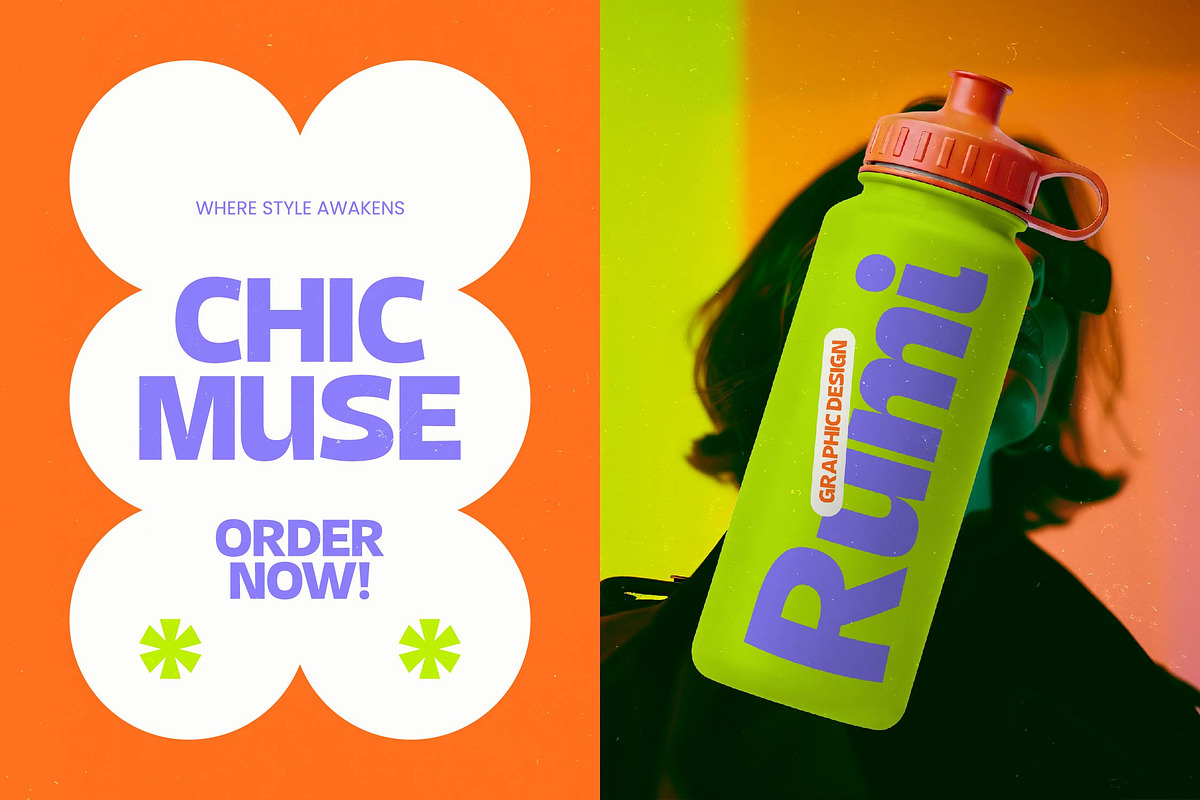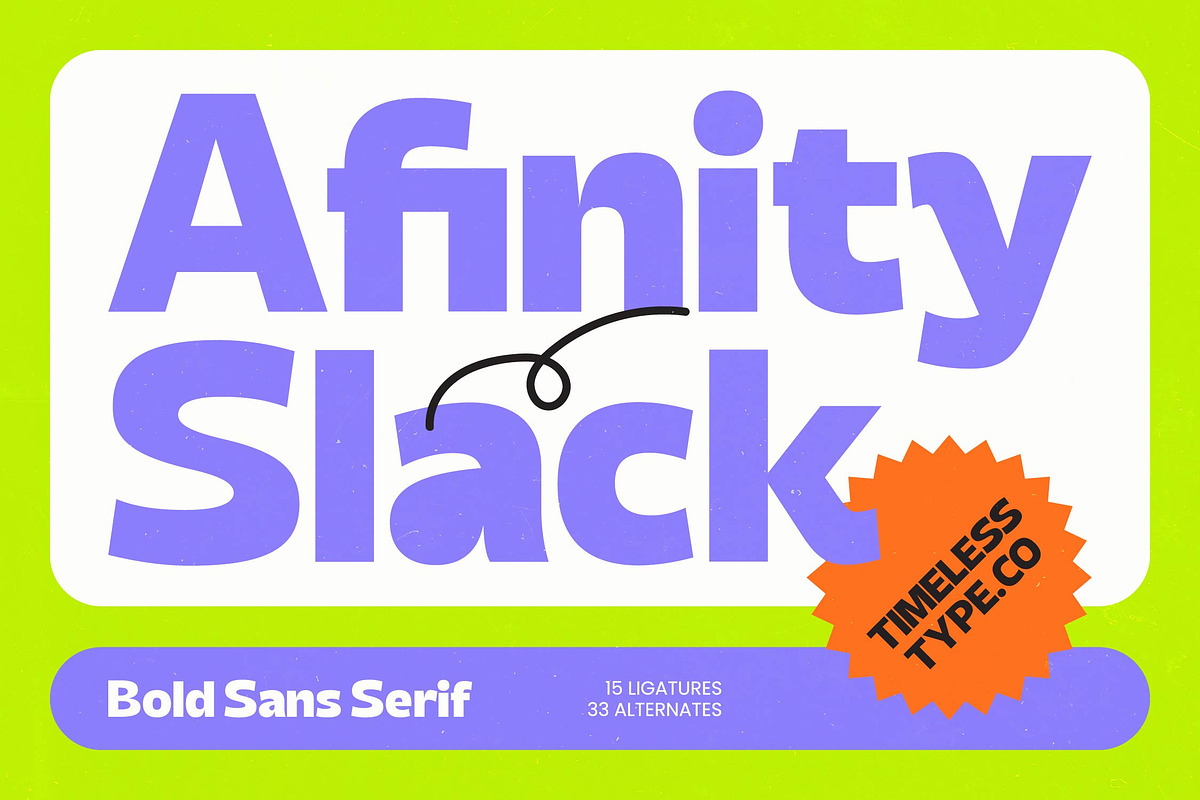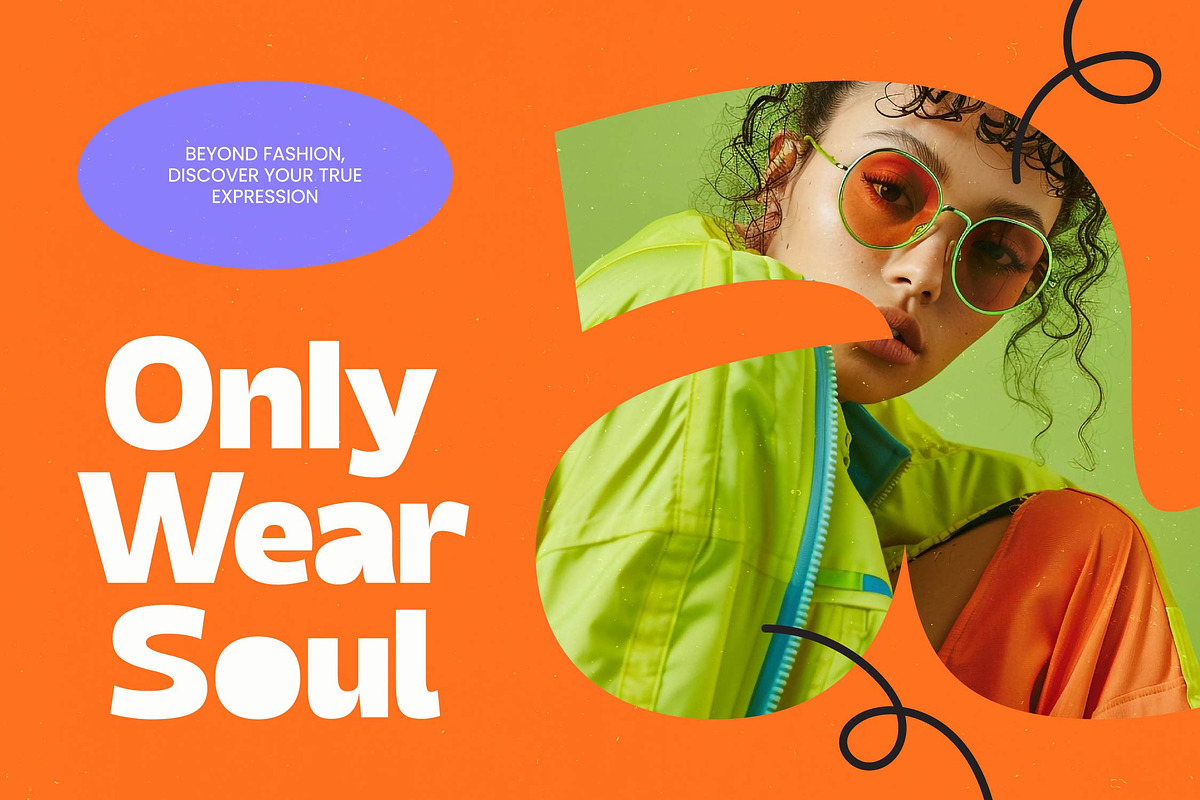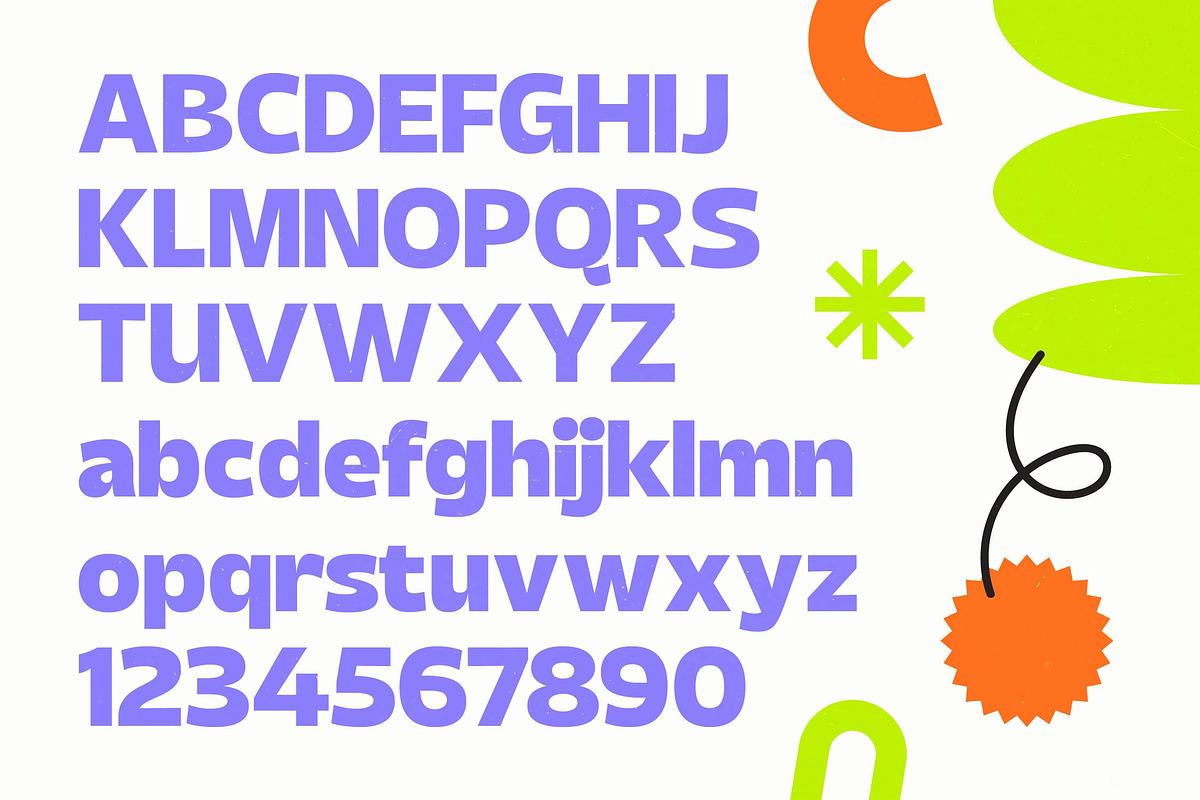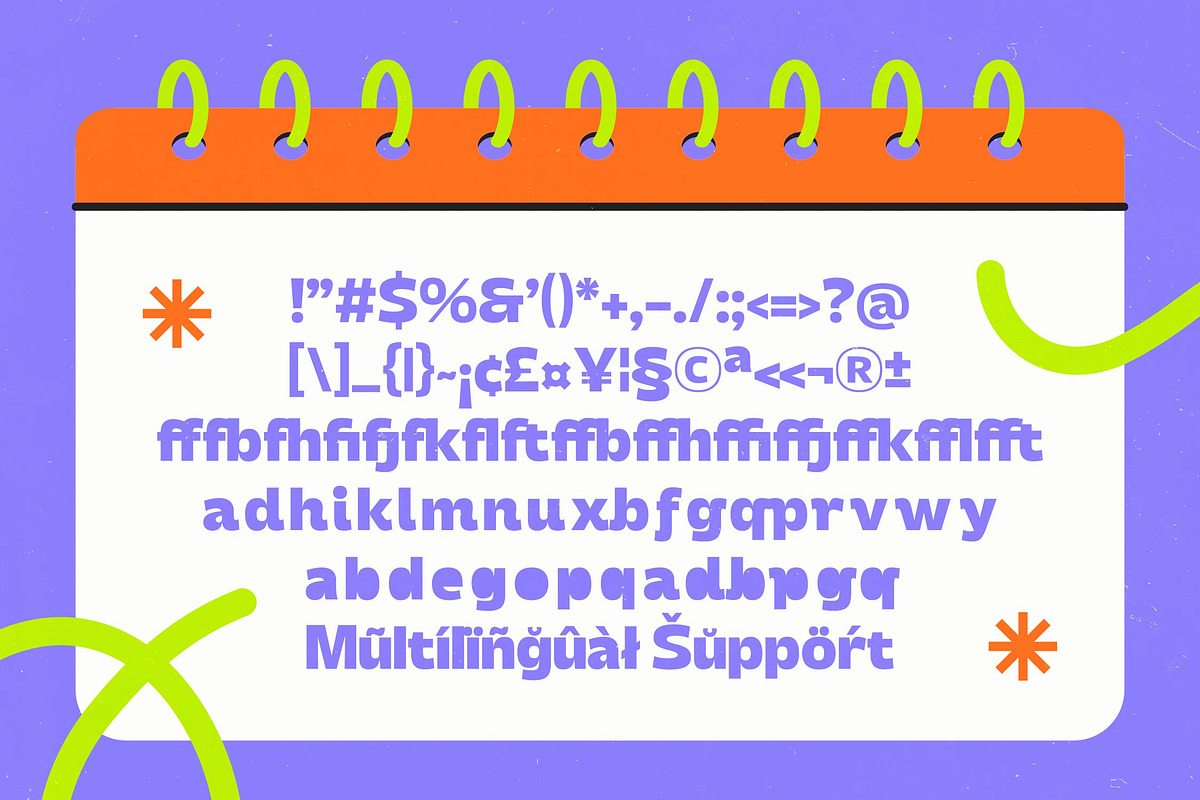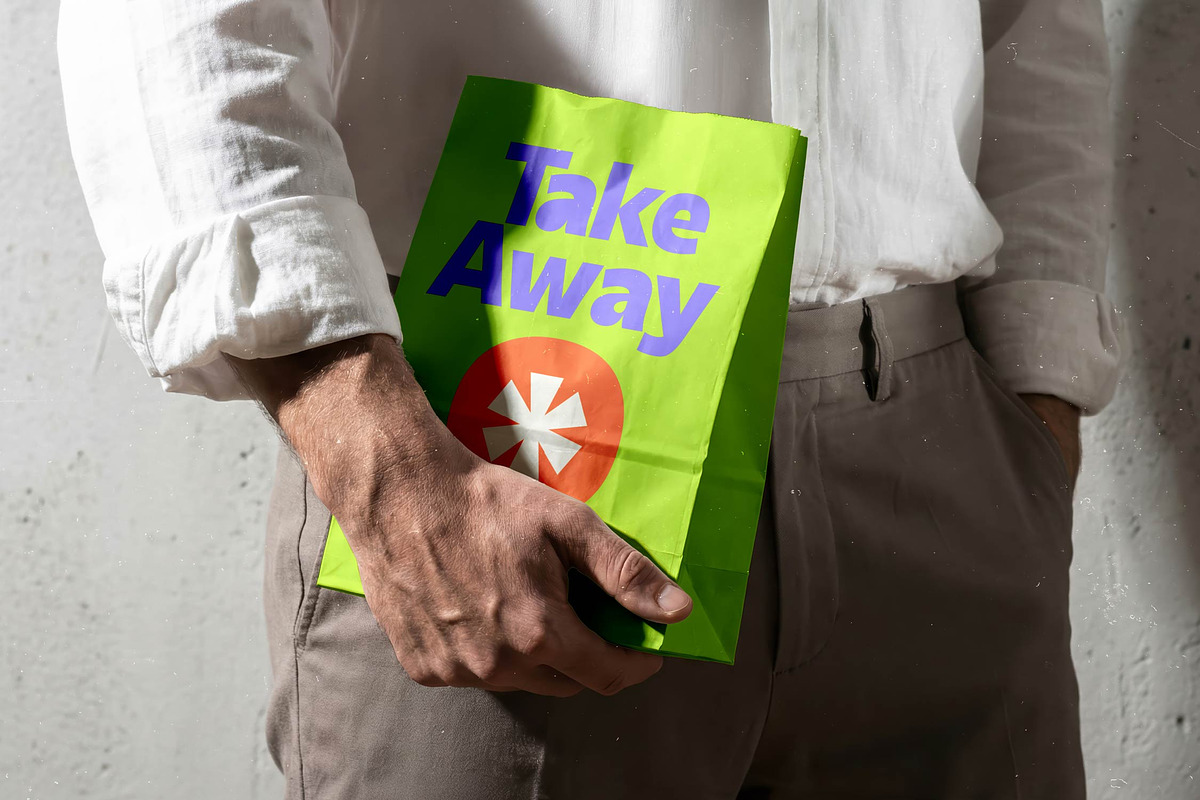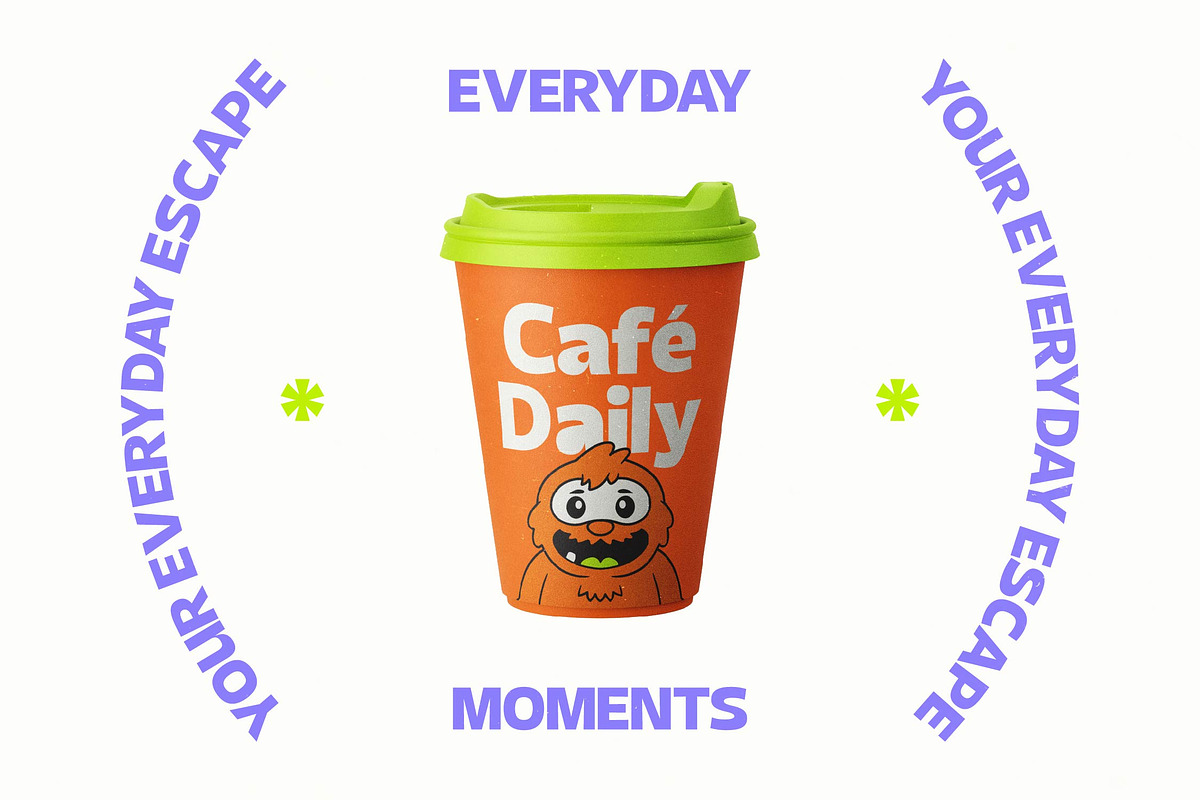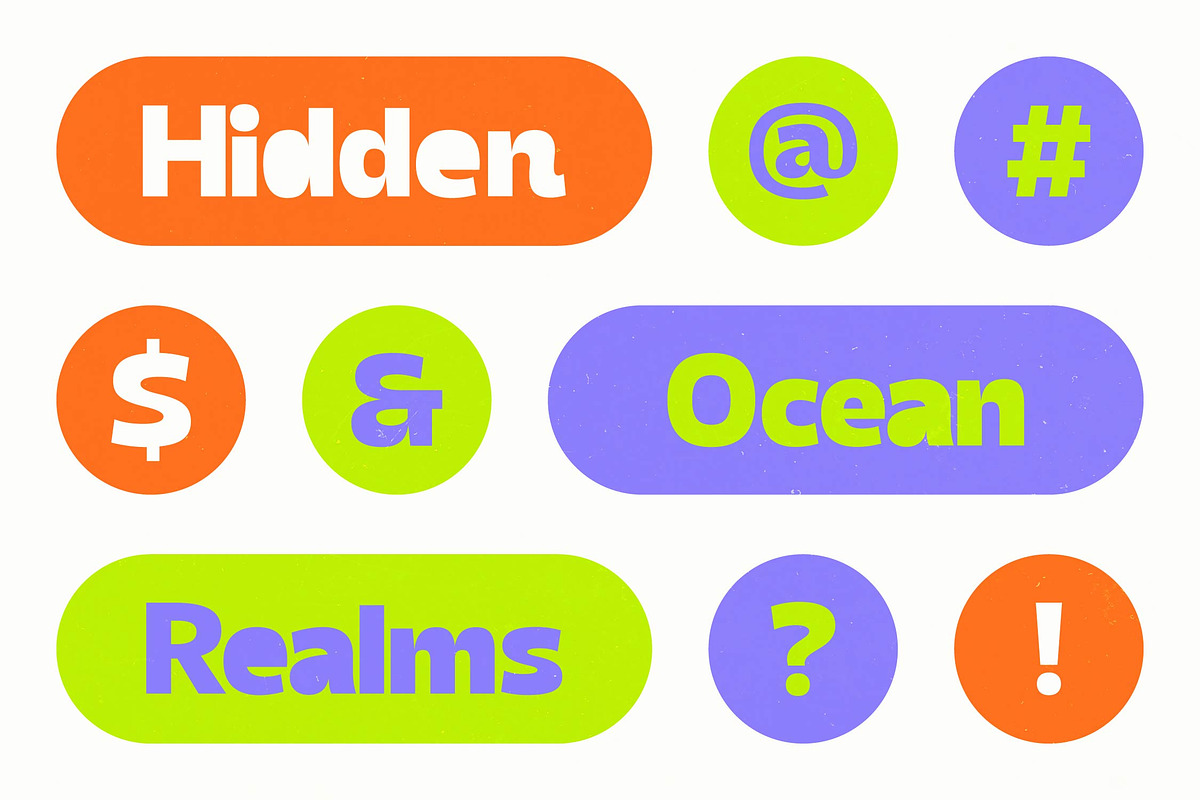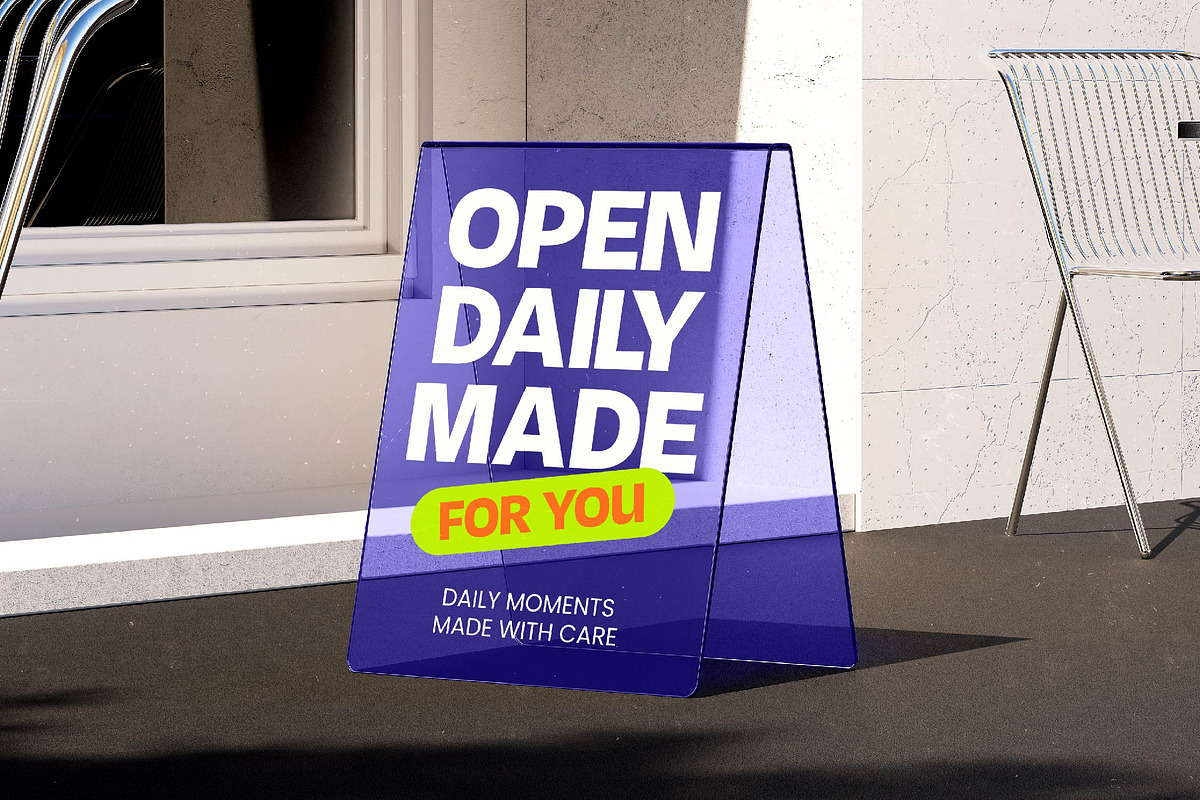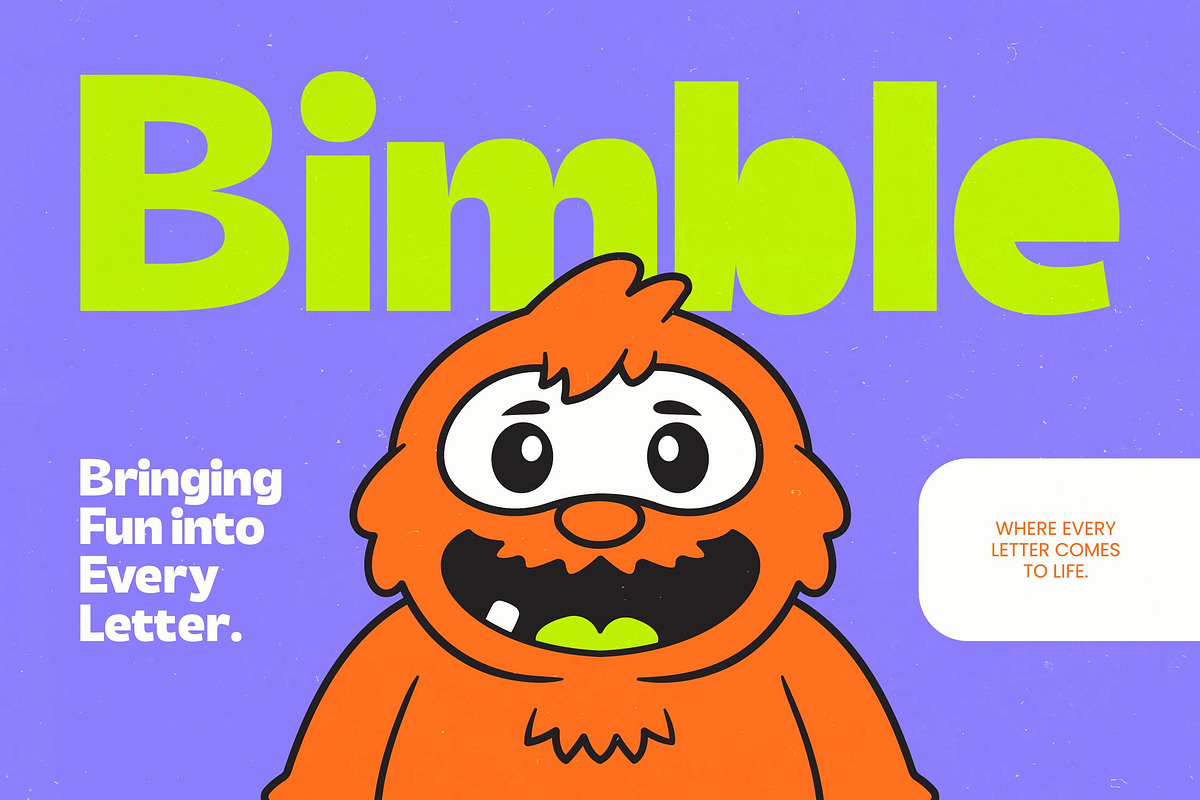
Afinity Slack Bold Sans Serif
Afinity Slack - Bold Sans Serif, Redefine modern impact with a typeface that balances power and playfulness. Afinity Slack - Bold Sans Serif is a masterpiece of contemporary typography, offering a heavyweight aesthetic that commands attention instantly. Its clean geometric lines are softened by subtle organic curves, creating a bold visual presence that is both professional and approachable. The inclusion of artistic alternates and custom ligatures ensures that every design remains distinct, making Afinity Slack - Bold Sans Serif a versatile asset for any creative toolkit.
Elevate your brand identity with a font engineered for high-end visibility and maximum legibility. This typeface is the perfect choice for luxury branding, modern packaging, and impactful editorial design. Whether you are crafting a premium logo or a striking headline, Afinity Slack - Bold Sans Serif provides the visual weight necessary to stand out in a crowded market. It is particularly effective for high-contrast layouts and digital advertisements where clarity and bold character are paramount.
Expand your creative reach across borders with effortless global compatibility and technical precision. With its extensive multilingual support, Afinity Slack - Bold Sans Serif adapts seamlessly across global markets, making it incredibly versatile for international projects. Designers can rely on its comprehensive character set to maintain a consistent brand voice throughout diverse regions. This global adaptability ensures that your message remains highly legible and stylish, regardless of the language or the scale of the campaign.